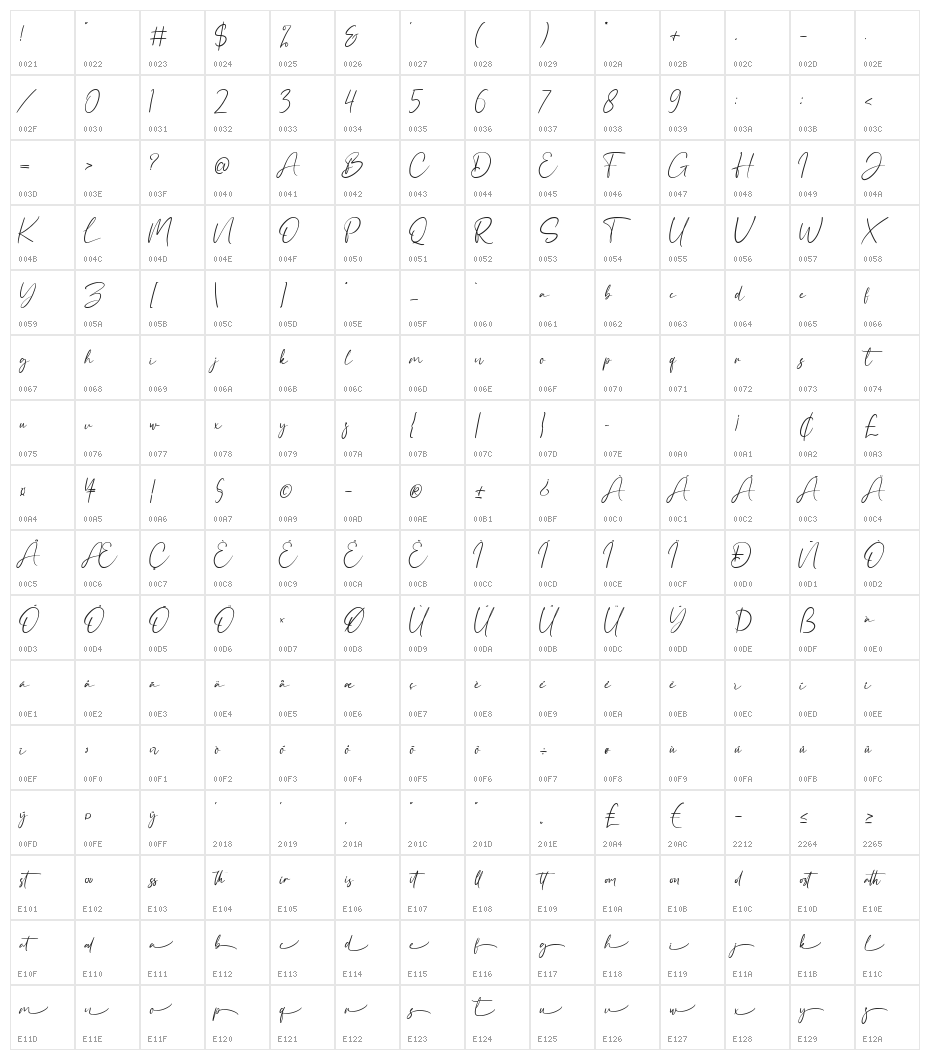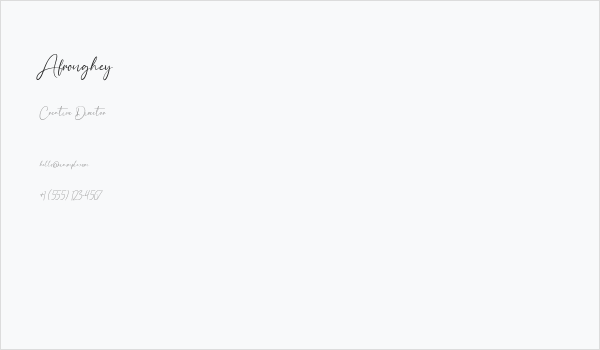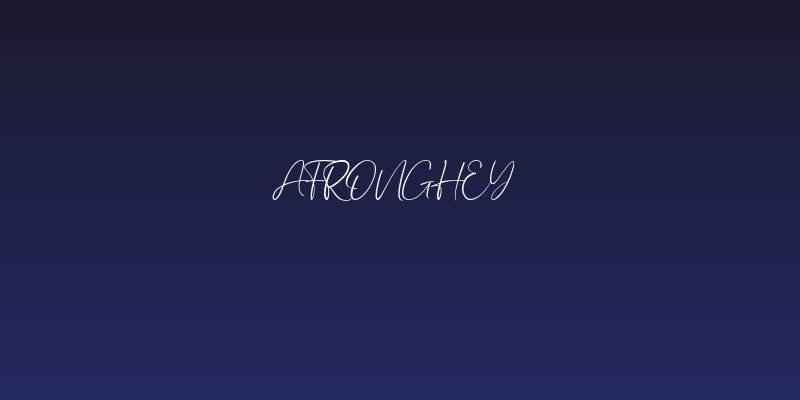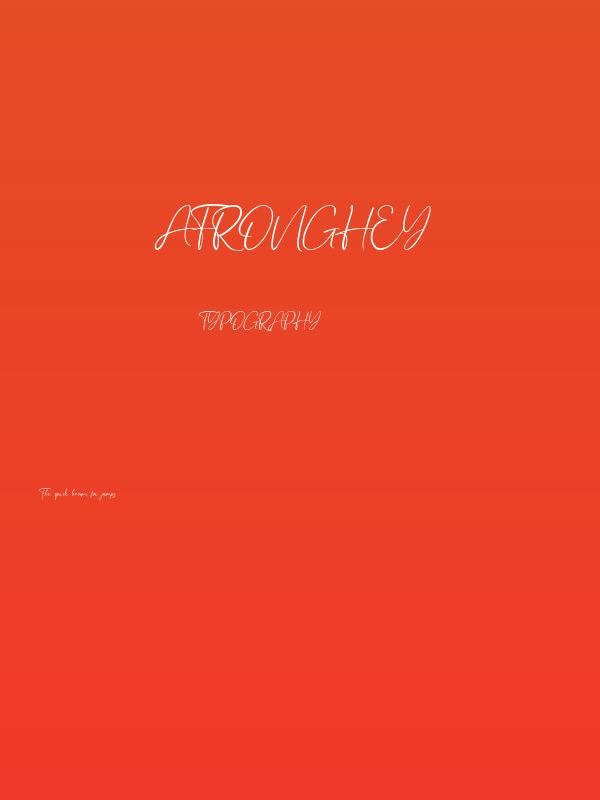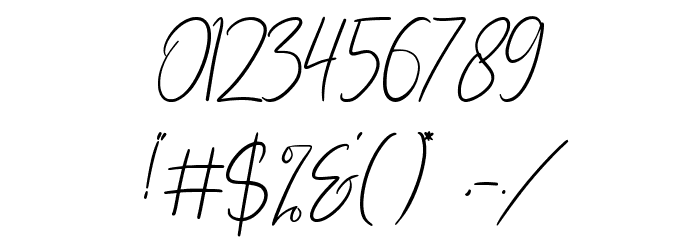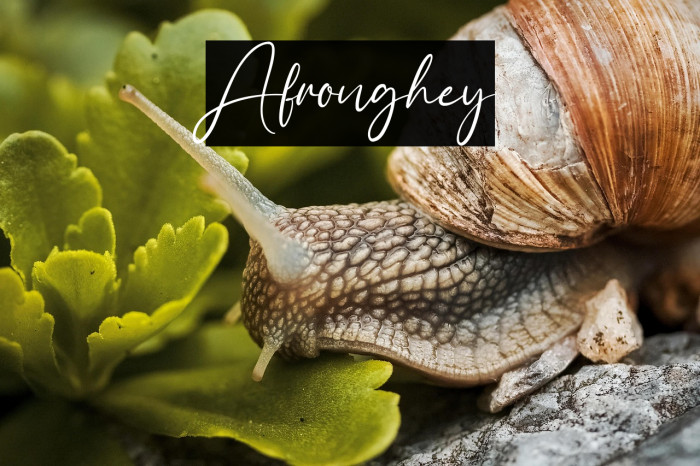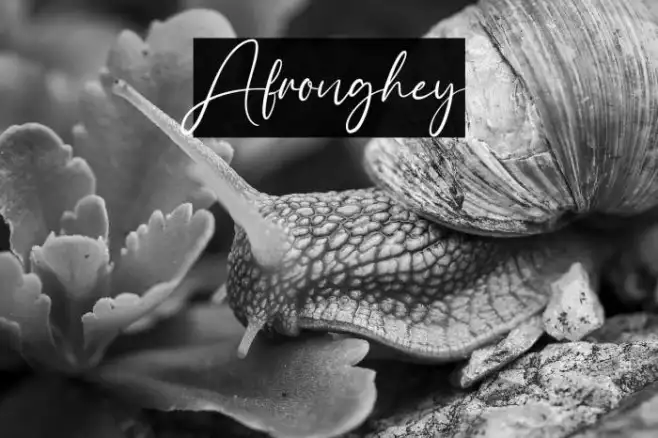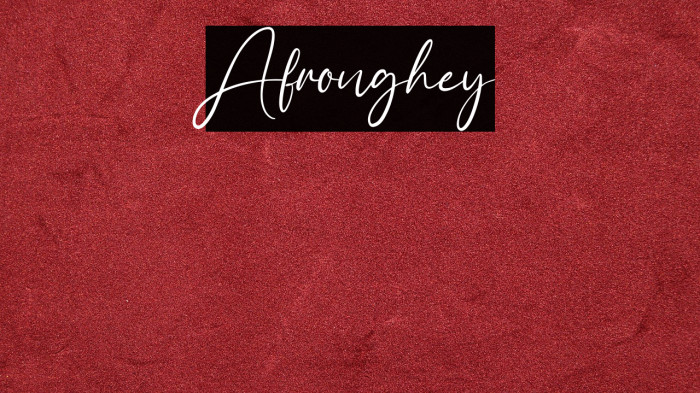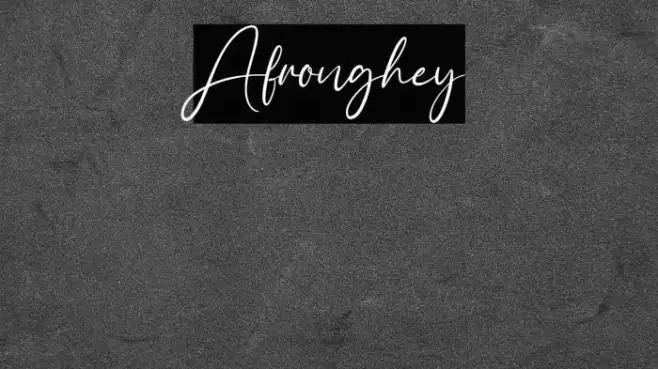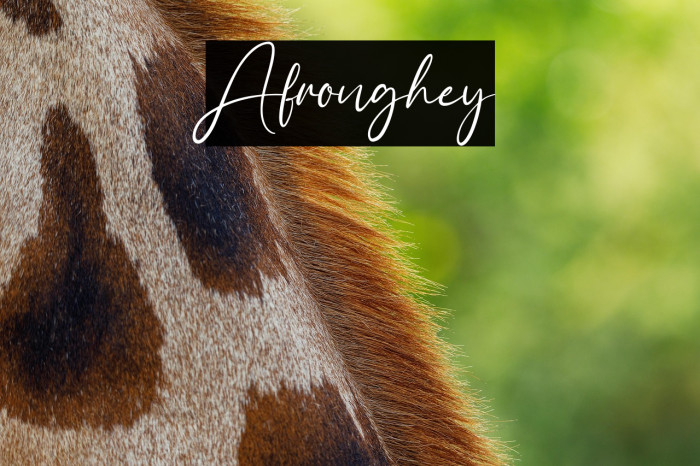
Afronghey Font
Afronghey Description
This font exudes a sophisticated and elegant handwritten style, characterized by its flowing, cursive script. The letters are interconnected with smooth, sweeping strokes that give it a fluid and dynamic appearance. The uppercase letters are tall and graceful, while the lowercase letters maintain a consistent rhythm and balance. The numerals and special characters complement the overall aesthetic, maintaining the same fluidity and elegance. This font is perfect for projects that require a personal touch, such as invitations, greeting cards, or branding materials that aim to convey a sense of luxury and refinement.
| Proposed Projects | Ideal for wedding invitations, personal branding, greeting cards, and luxury product packaging. |